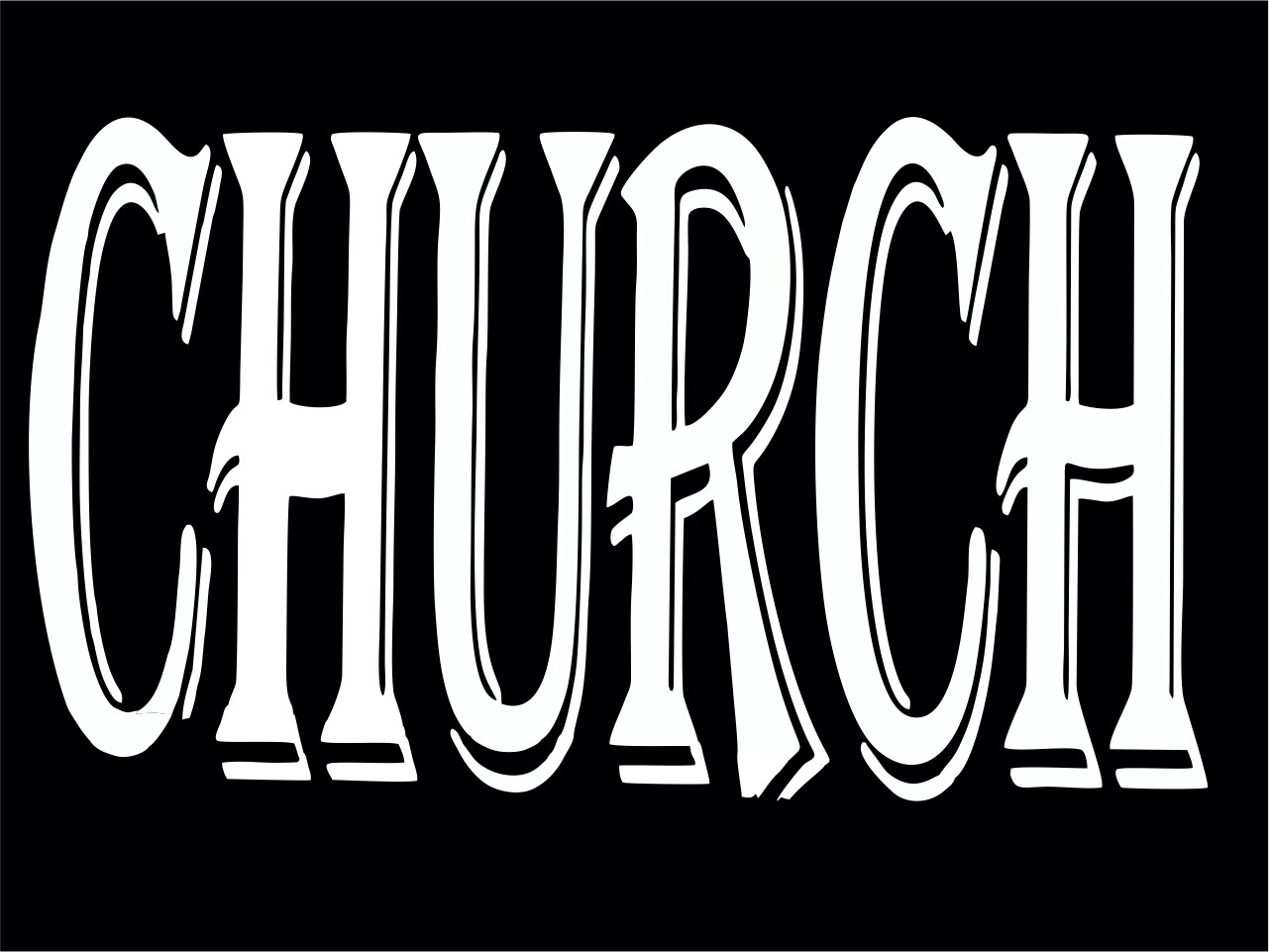
Pls what is the name of this font
Looks like a very stretched version of Tavern
Algerian, but with a small stroke and the tracking and horizontal scale reduced.
Whoa, like Algerian isn’t horrible enough unmangled.
I ache for the day I can banish it from my computer.
Tavern is FontMesa’s version of Algerian — as if the world needed more versions of this horribly misused typeface.
Like the typeface Hobo, Algerian, was designed in the early 20th Century. Both are prime examples of Art Nouveau. Both typefaces make sense when viewed in that context and fit nicely into the broader Art Nouveau style.
However, despite seeing Algerian and Hobo used hundreds of times, I’ve never seen either used in places where an Art Nouveau typeface was needed. Instead, they’re invariably used and mangled by typographically tone-deaf people in places they absolutely don’t belong.
I cringe whenever I see Algerian or Hobo used — not because they’re inherently ugly, but because of the complete disregard for how they’re used.
I like the following use of Algerian.
I’m having a more difficult time finding Hobo used well, but here’s someone’s attempt to at least place it within the context of Art Nouveau.
What happens when the amateur logo designer goes looking through an alphabetically-sorted font menu for anything that isn’t a plain old font?
Yup, it’s a fancy font right at the top of the font list and right next to the super dull and boring Arial. In other words, a perfect choice to add a little pizzazz. ![]()
I ran into this site — famous logos where the type is replaced by Algerian.
Also, the Patron packaging is nice.